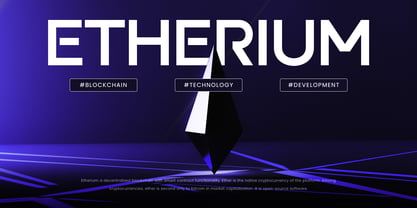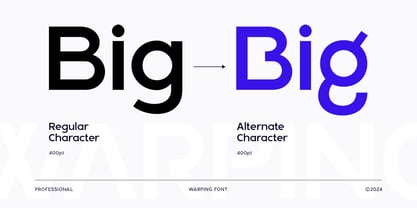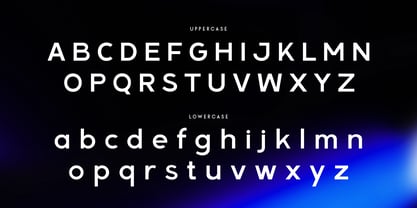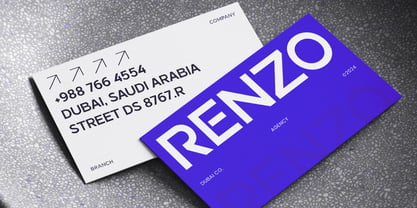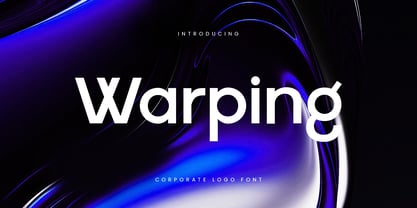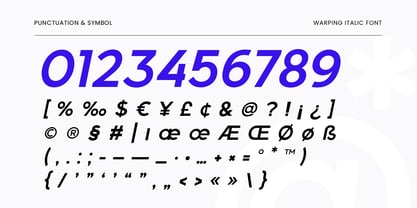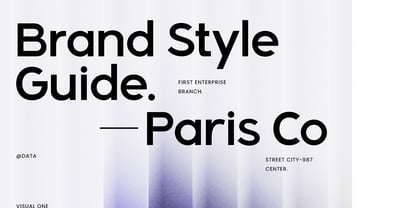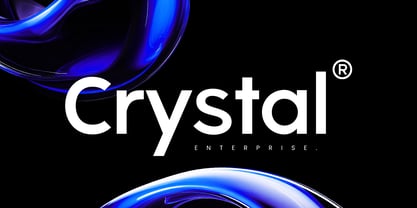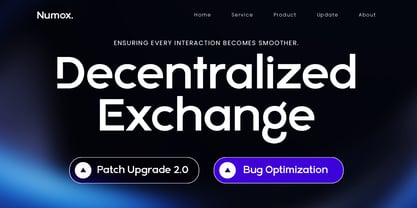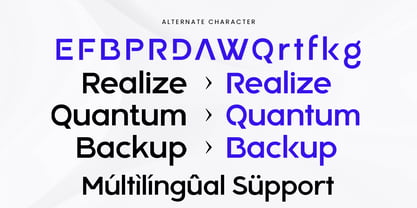
Warping
by Sensatype Studio
The Warping Font Family was designed by Zamroni Hamzah and published by Sensatype Studio. Warping contains 2 styles and family package options. More about this family
Warping is a font that captures the essence of modern corporate design. With its clean lines and sleek appearance, Warping is perfect for creating professional logos, branding, and corporate materials that demand attention. Its contemporary style ensures your projects remain relevant and impactful in today’s fast-paced business environment.
Inspired by the needs of modern businesses, Warping offers a range of features that cater to professional design requirements. The font includes huge alternates, punctuation, numbers, symbols, and supports both uppercase and lowercase letters. Its multilingual support allows you to communicate your brand message across different languages and regions effortlessly.
Warping Corporate Logo Font Features:
• Huge Alternates Ready
• Punctuation, Number, and Symbol
• Uppercase and Lowercase
• Multilingual Support